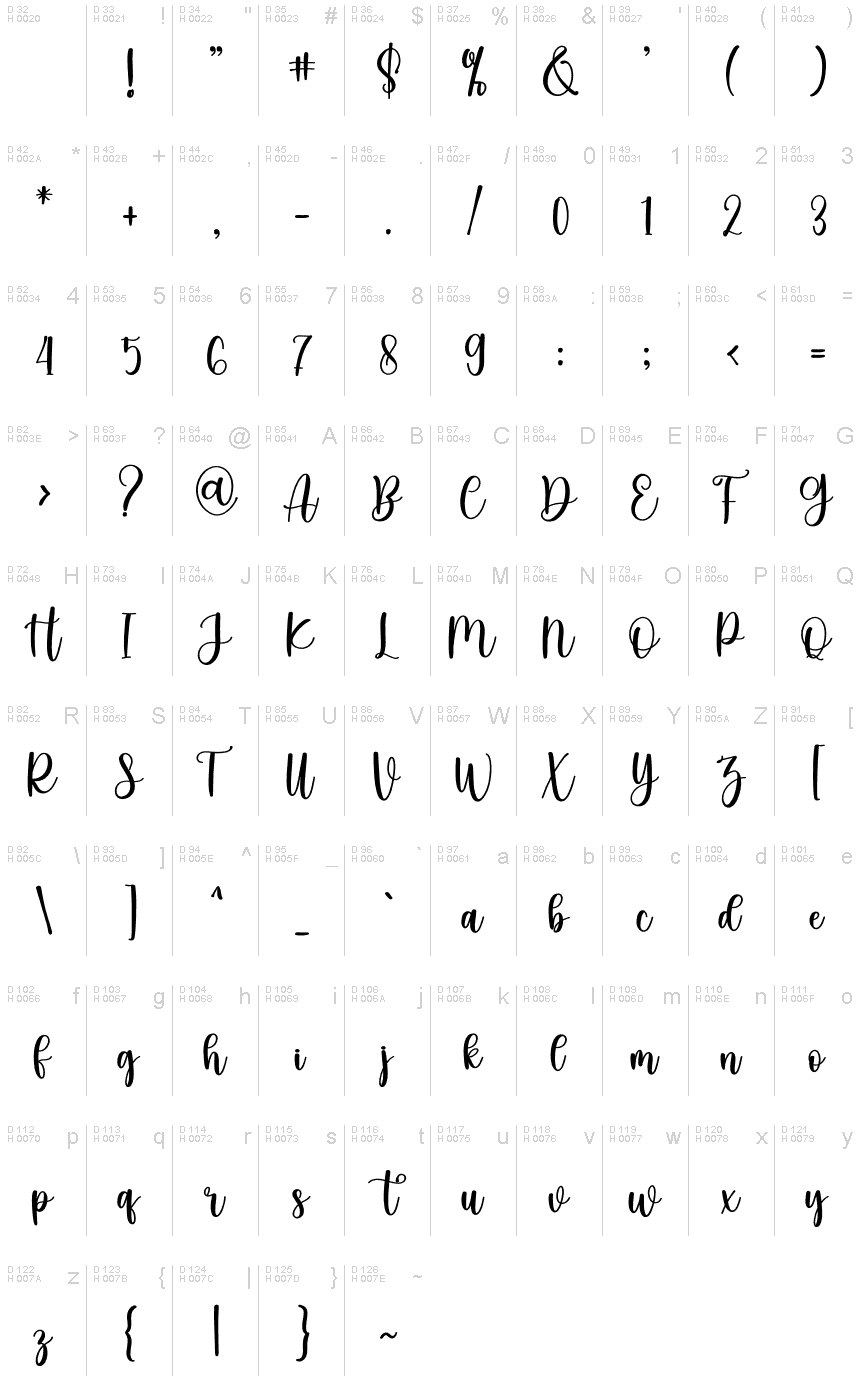
Brightness Christmas
Brightness Christmas by Inermedia Studio is a beautiful calligraphy font with a light weight. This font is perfect for creating unique holiday cards, posters, and invitations. It's also great for adding a touch of elegance to any project.